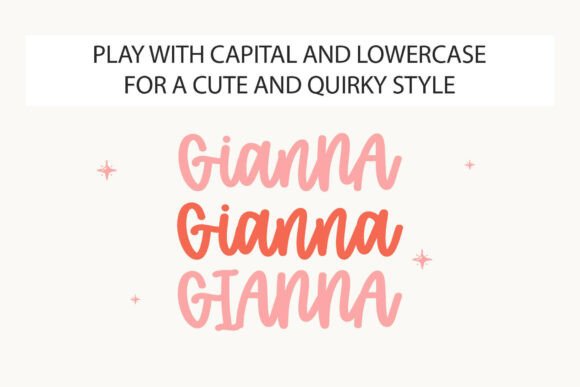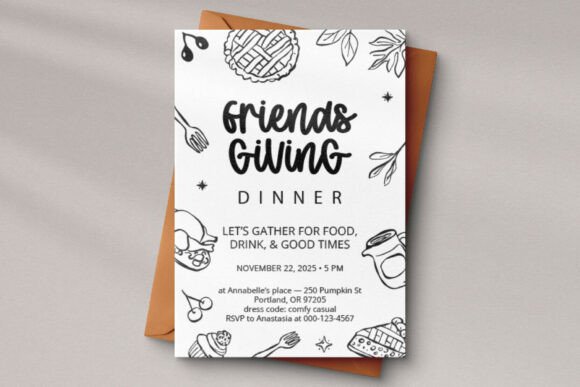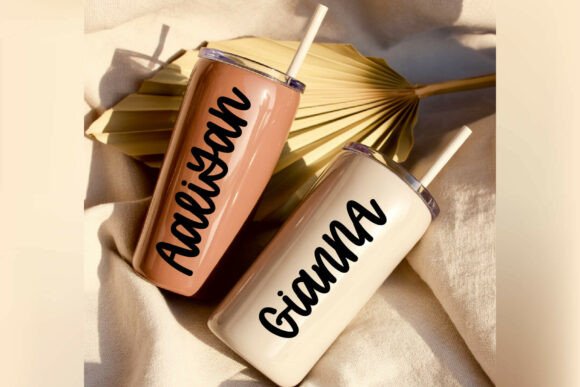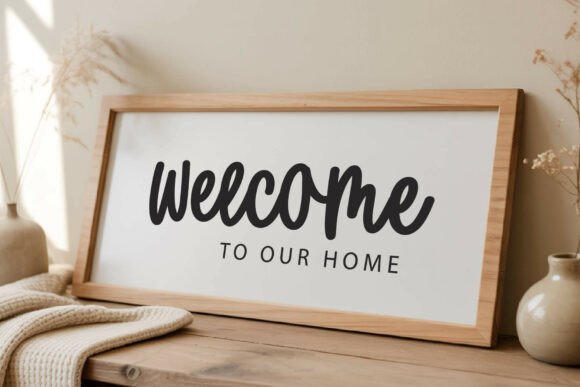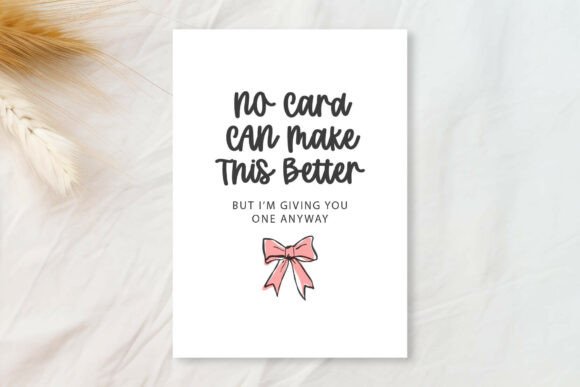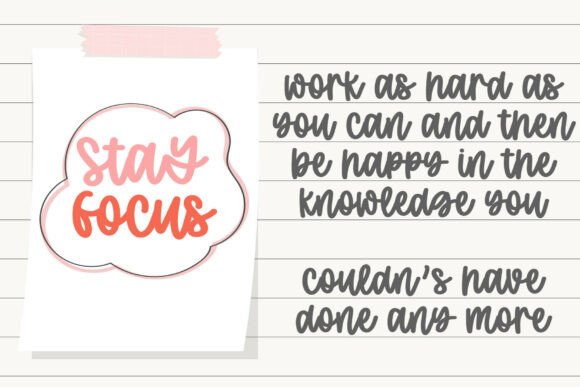
Introduction to Maple Mingle Font
Have you ever been working on a creative project, pouring your heart and soul into every detail, only to feel like something is missing? That’s when I discovered the Maple Mingle Font – a game-changing design resource that brings a burst of personality to any project. This bouncy, bold, and playful cursive font is perfect for adding a touch of whimsy to your high-quality designs.
What sets Maple Mingle Font apart is its unique ability to mix CAPS and lowercase letters for a quirky, hand-lettered look that’s both eye-catching and readable. Whether you’re creating a Friendsgiving invitation, a farmhouse welcome sign, or a set of stickers, this font is sure to elevate your design to the next level.
As a valuable resource for designers, the Maple Mingle Font offers a free download with a transparent background, making it easy to incorporate into your creative projects. With its thick, rounded strokes, it’s perfect for use on both print and cut machines, such as Cricut, Silhouette, or Glowforge. Get ready to take your designs to new heights with the Maple Mingle Font!
Key Features of Maple Mingle Font
- High-quality design resource perfect for creative projects, offering a unique and stylish look.
- Maple Mingle Font comes in 5 different styles, each with its own distinct characteristics, allowing users to choose the perfect fit for their project.
Honest Review: Maple Mingle Font
I recently had the chance to work with the Maple Mingle Font, and I’m excited to share my thoughts on this design resource.
- ✨ High-quality design: The font has a clear and legible structure, making it perfect for creative projects.
- ✨ Variety of styles: The Maple Mingle Font comes in multiple weights and styles, giving designers a range of options for their designs.
- ✨ Transparent background: The font’s transparent background makes it easy to layer over images or other design elements.
- ⚠️ Limited language support: The font may not support all languages, which could be a issue for designers working on multilingual projects.
- ⚠️ Not suitable for small text: The font’s design may not be ideal for small text sizes, which could affect readability.
Overall, I’m impressed with the Maple Mingle Font’s high quality and versatility. It’s a great addition to any designer’s toolkit, especially for creative projects that require a unique and eye-catching font. And the best part? It’s available as a free download, making it an accessible design resource for designers of all levels.
Tips and Use Cases
For the most out of the Maple Mingle Font, use it in conjunction with other design elements to create a cohesive and visually appealing design. Common use cases include logos, branding, typography-based designs, presentations, and documents. The Maple Mingle Font’s transparent background makes it perfect for overlays and text effects.